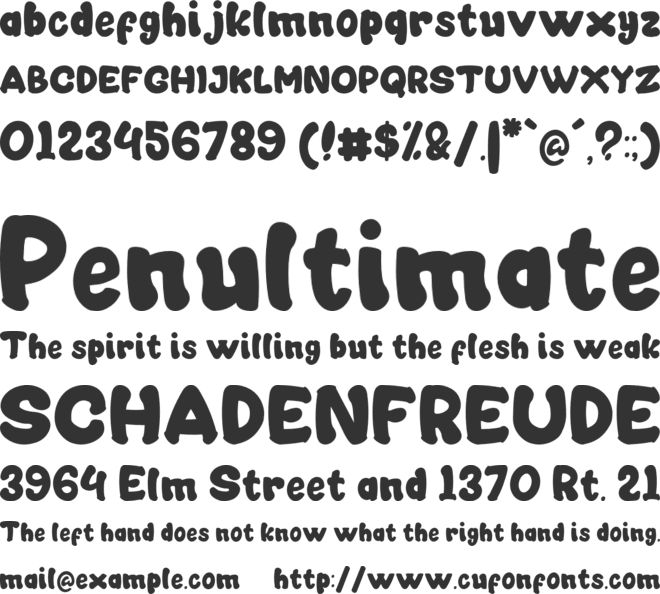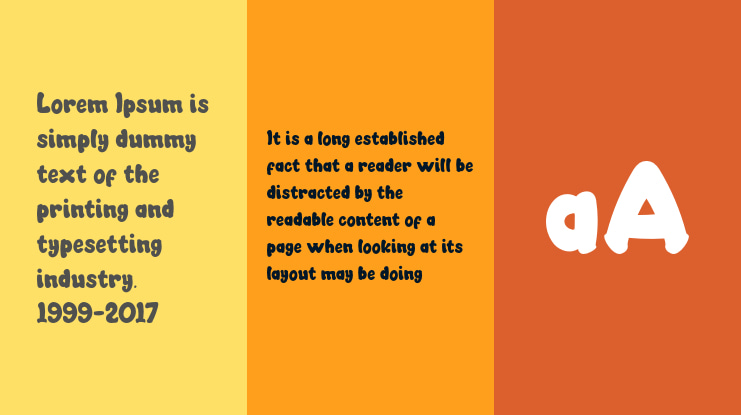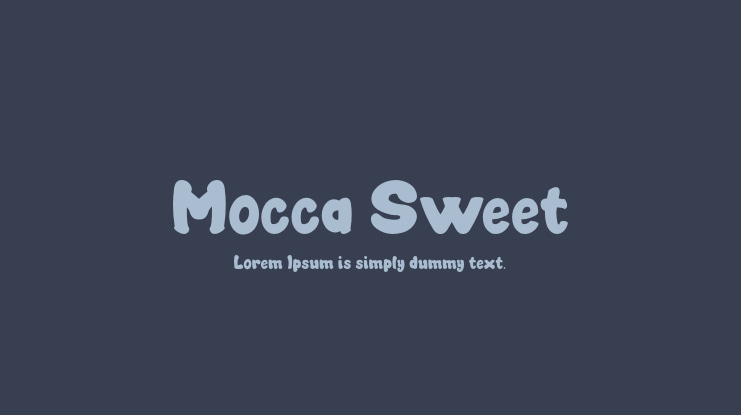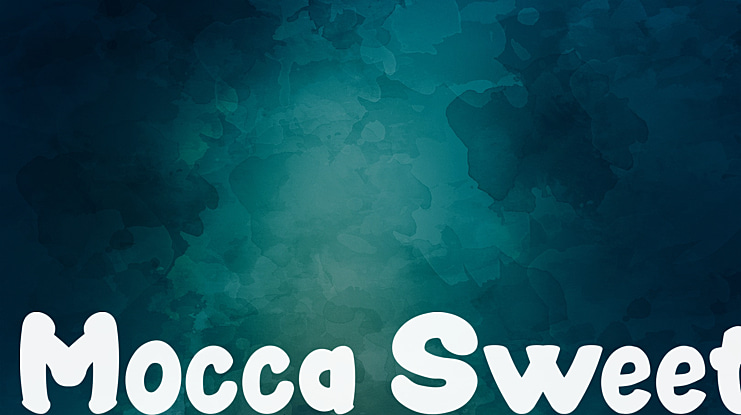
Mocca Sweet Font
Introducing our new release, Mocca Sweet Display Type Font. This typeset is perfect for brand logo, invitations, greeting card, or even any kind of project. With multilingual feature and style variations, this typeface would further enhance the aestethical aspect of your work.Visit our website :https://displaytypefont.com/product/mocca-sweet/